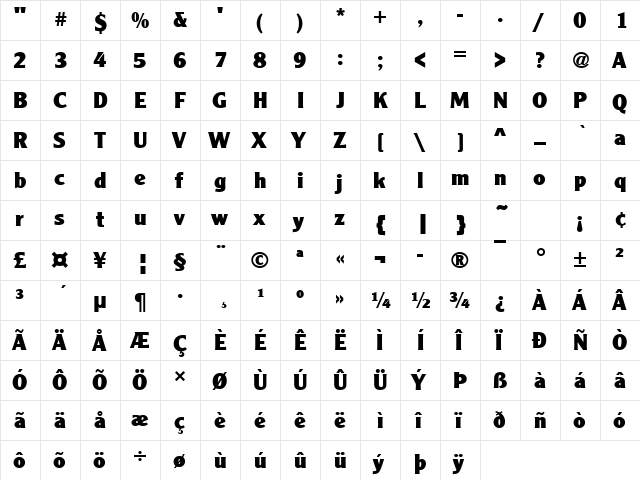
ClearfaceGotExtBol Regular
Design Context for ClearfaceGotExtBol Typeface
ClearfaceGotExtBol is a composed and adaptable typeface that performs quietly and consistently across a wide range of design contexts.